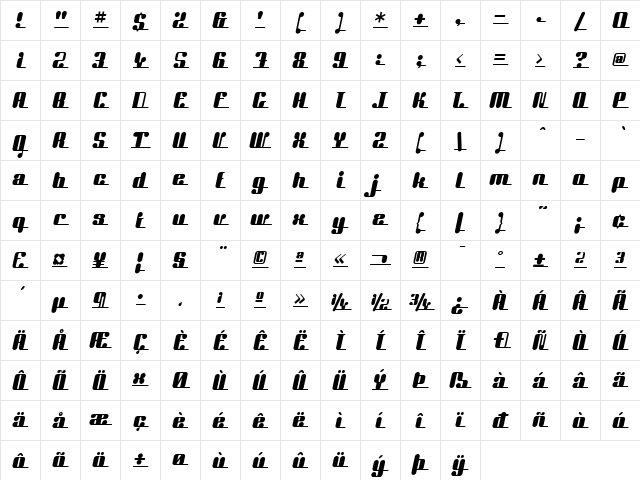
UniteTogetherICG Medium Italic
Design Context for UniteTogetherICG Typeface
UniteTogetherICG is a composed and adaptable typeface that performs quietly and consistently across a wide range of design contexts. The dynamic lean of this cut emphasises speed and emphasis in any layout.
Pro Tip: Use UniteTogetherICG for emphasis, pull quotes, and subheadings where its slanted energy can add rhythm to the layout.